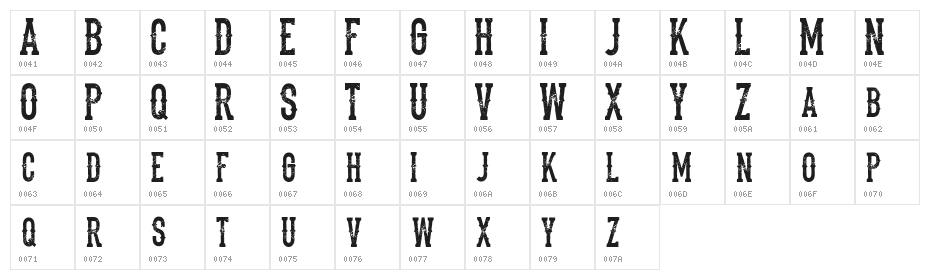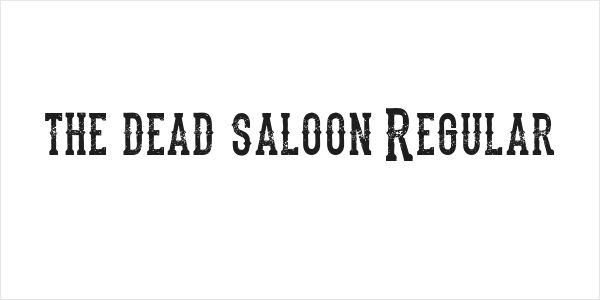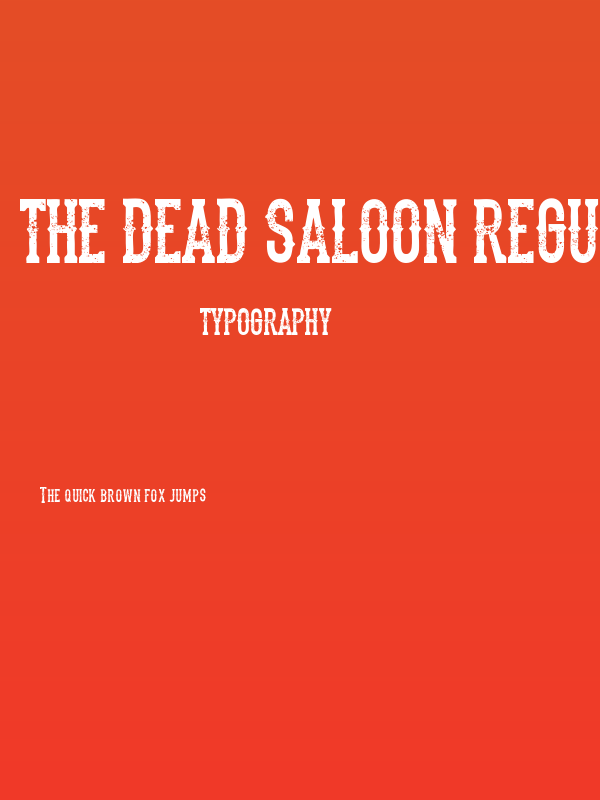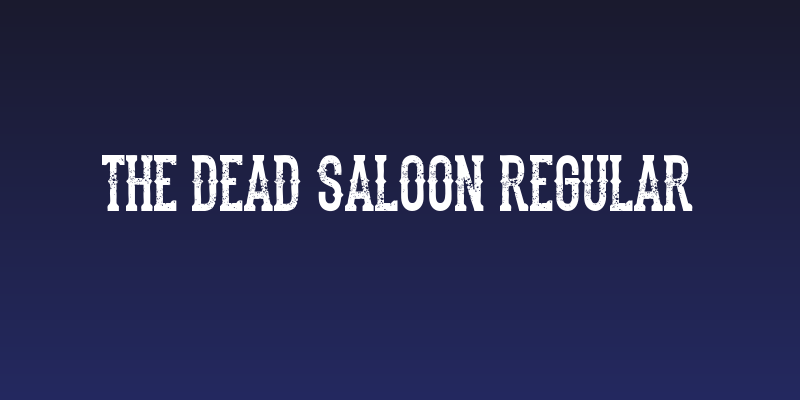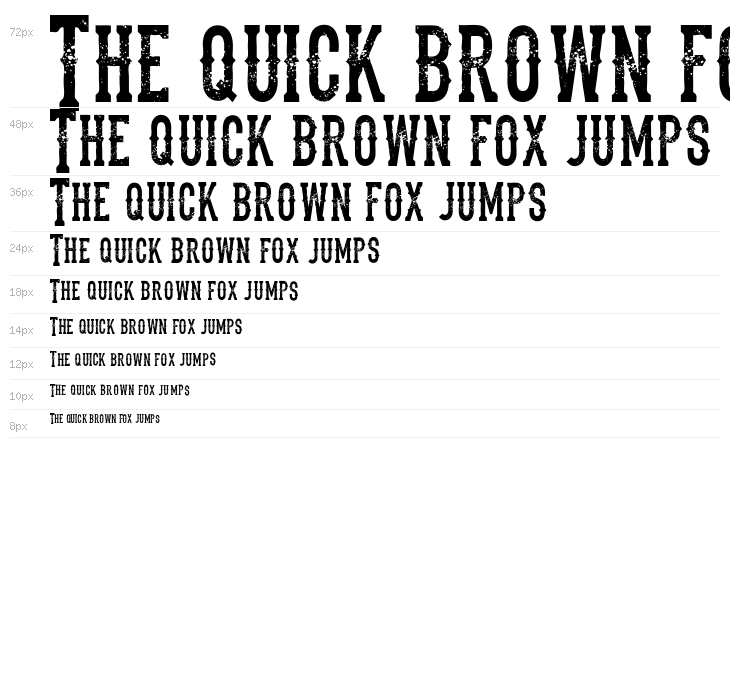
the dead saloon Regular Font
the dead saloon Regular Description
This font features a bold, distressed style with a vintage Western aesthetic. The characters are uppercase and have a rugged, textured appearance, reminiscent of old saloon signage. The bold strokes and weathered look give it a strong, impactful presence, making it ideal for designs that require a rustic or antique feel. The font's unique character is enhanced by its irregular, worn-out edges, adding to its authentic, aged look. It is perfect for creating eye-catching headlines, posters, or branding materials that need a touch of the Wild West.